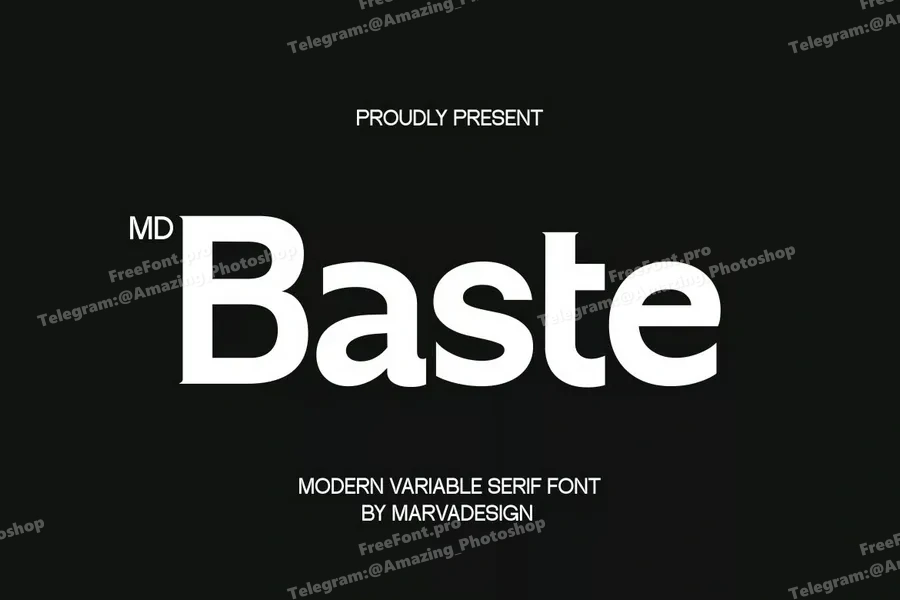
Baste Font
Welcome to the charming world of “Baste Font”! This delightful serif font exudes elegance and sophistication, perfect for adding a touch of class to your projects. With its timeless design and graceful curves, “Baste Font” is sure to captivate your audience and leave a lasting impression.
Let your creativity soar as you play with this versatile font – from crafting beautiful invitations to designing eye-catching posters, the possibilities are endless. Embrace the beauty of typography and let “Baste Font” elevate your creations to new heights.
Indulge in the allure of “Baste Font” and infuse your designs with a touch of timeless grace. Unleash your imagination and watch as this exquisite serif font transforms your projects into works of art.
Introducing Baste is an elegant serif font, designed to evoke a sense of sophistication and refinement. Its semi-condensed form lends itself particularly well to headlines, titles, and other prominent text elements, balancing style with practicality. The font offers a versatile range of weights through its variable options, including Thin, ExtraLight, Light, Regular, Medium, SemiBold, Bold, ExtraBold, and Black. This wide selection of weights allows designers to achieve varied typographic emphasis, from delicate, airy text using the lighter weights to strong, impactful visuals with the bolder options. The serif details of Md Baste add a classic touch, making it suitable for projects that require a blend of tradition and modernity. Ideal for both print and digital formats, Md Baste ensures readability and elegance in equal measure.